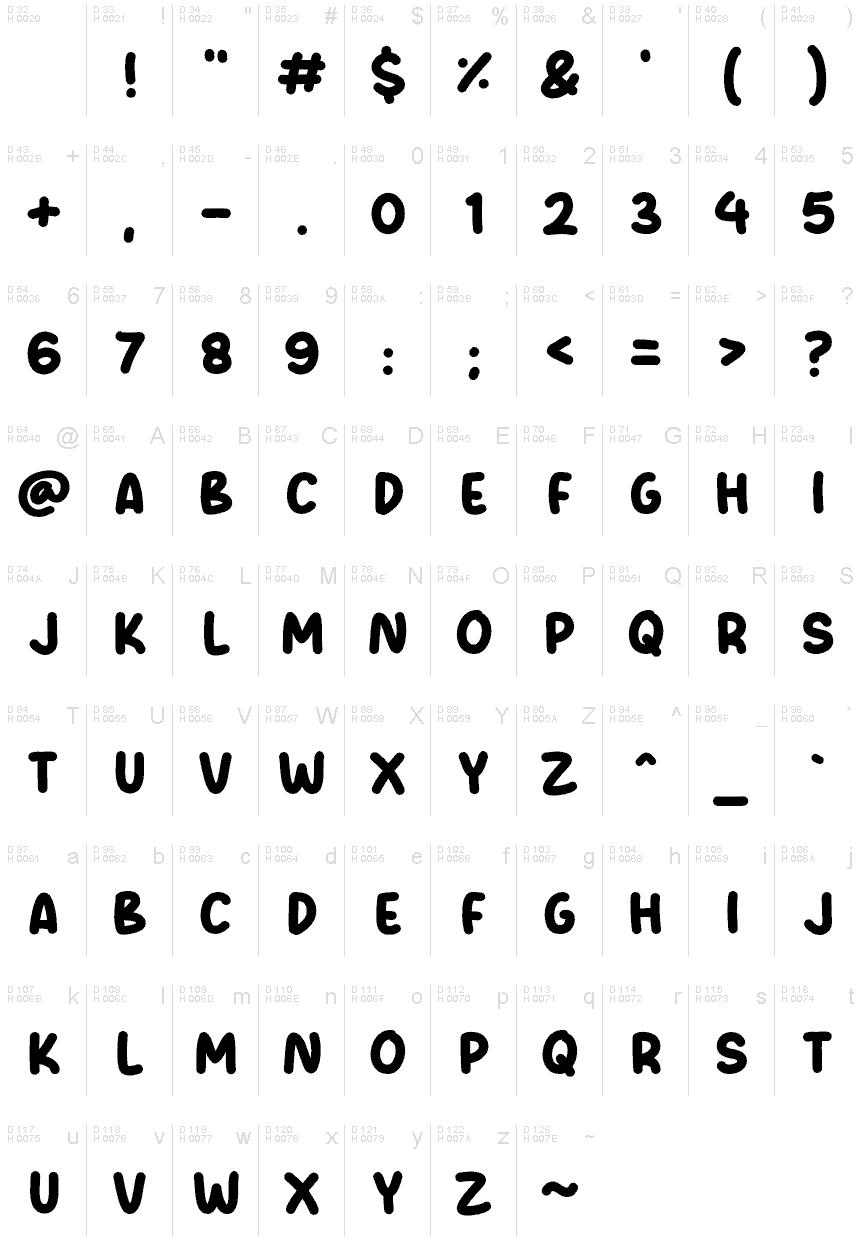
Cheese Market
Cheese Market font by MJType is a handwritten bold typeface with whimsical and rounded shapes. Exuding warmth, this friendly font adds a retro vibe inspired by mid-20th century advertising styles. Cheese Market has an inviting appearance making it suitable for branding projects that require a hand-drawn feel.
This free handwritten font is perfect for product packaging, restaurant menus, casual branding, book cover designs, children’s products, logos or visual identities of artisanal products and shops. Titles in blogs or evergreen websites can also adopt such unusual styles with no limitation due to industry types.